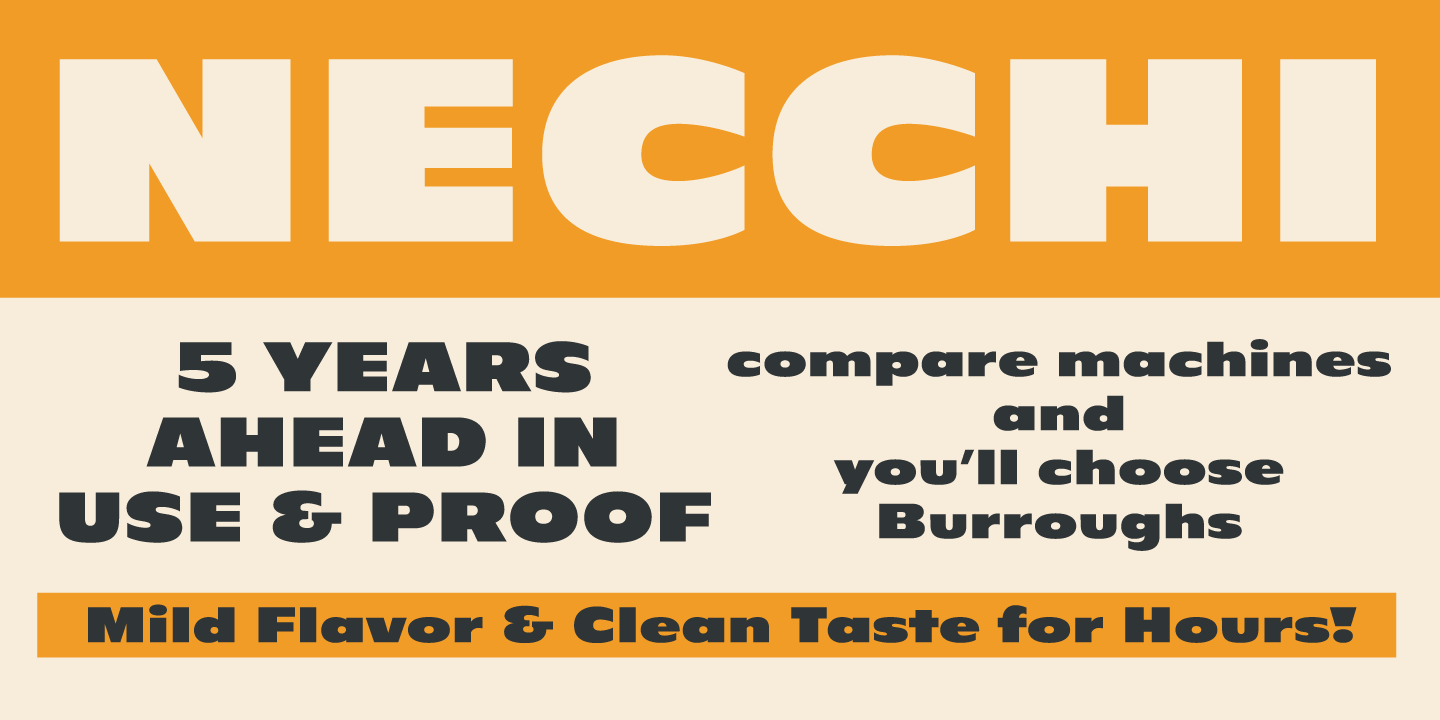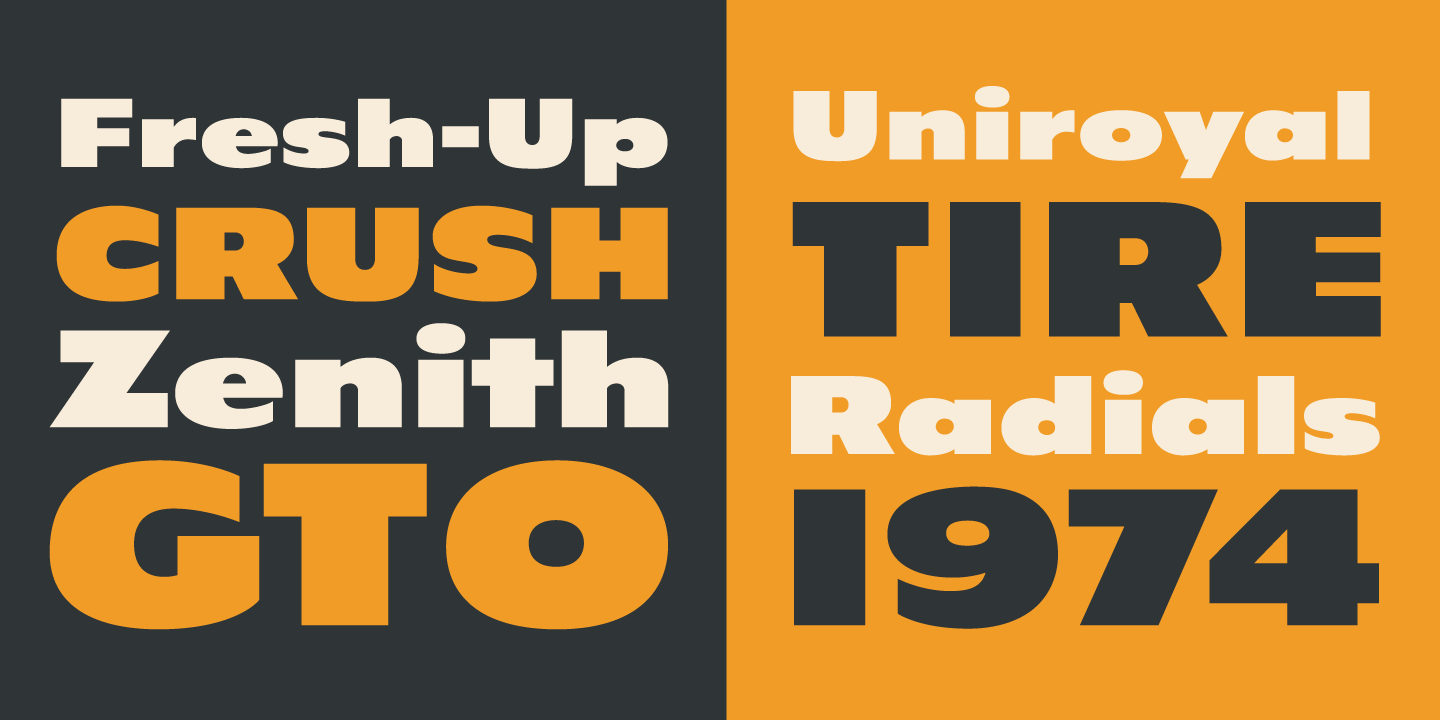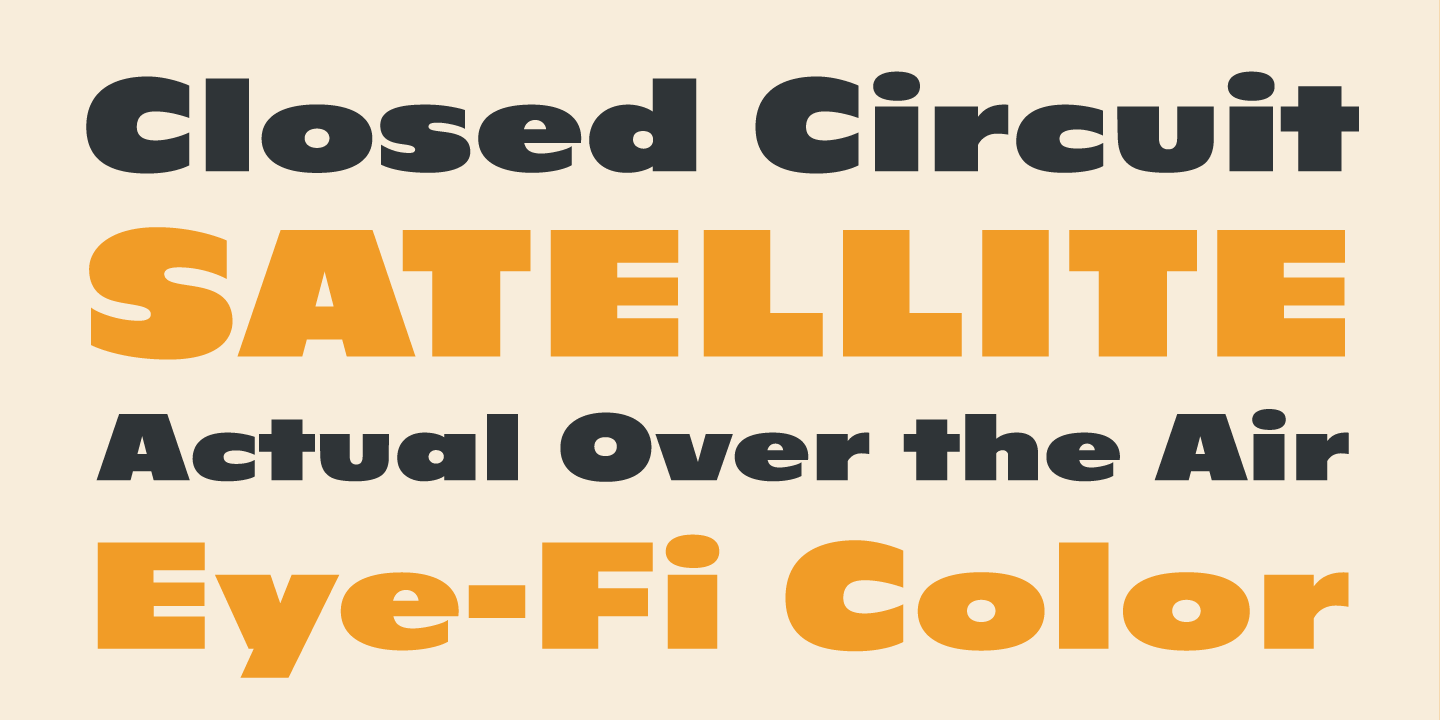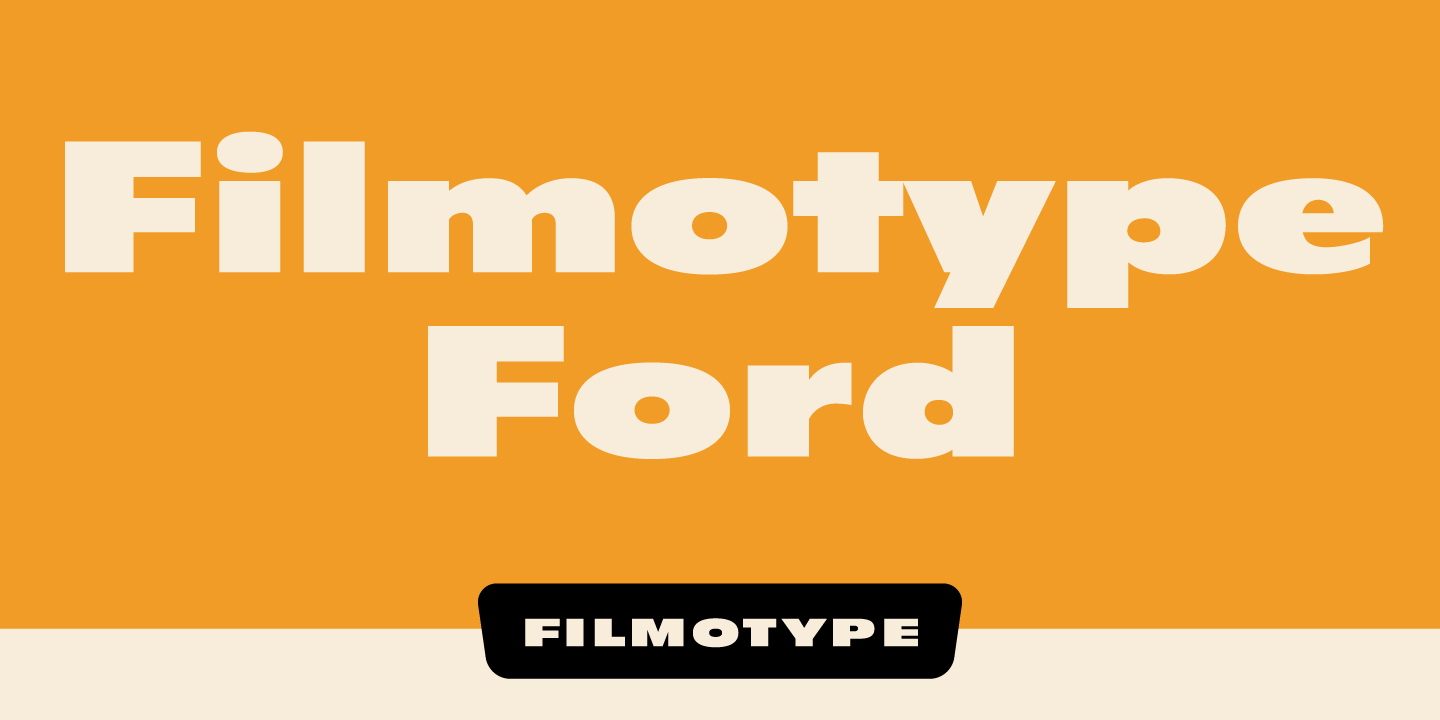
Filmotype Ford
Initially designed in the early-to-mid 1950s and likely inspired by the styles made popular by Lettering, Inc, Filmotype Ford solves the needs of customers looking for a more heavy duty sans serif style with a 1940s sensibility. Even with its ultra wide…